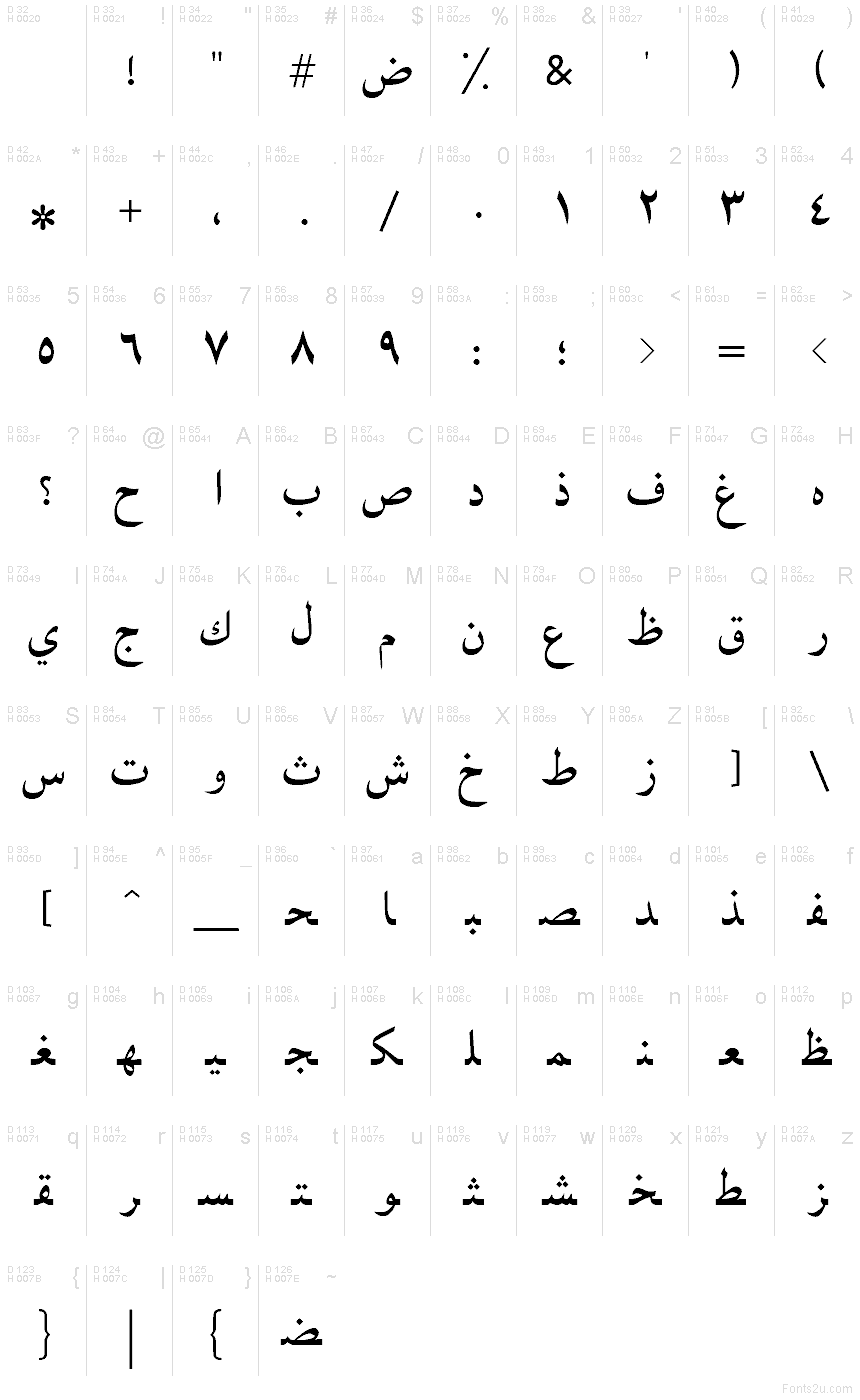
Baghdad
Baghdad font by Rudolph Homann offers an Arabic calligraphy feel with its unique glyph letterform. Its lines are smooth, clean, yet artistic; and the overall presence of this display typeface is truly eye-catching. Whether it’s for a logo project, labeling designs, stamps, or any other professional or personal project, this font would allow you to create a one-of-a-kind piece.
Applications in which Baghdad can be used include headlines and titles of magazines or newspapers. Publication covers like book cover designs as well as bookmarks are also viable options along with posters and flyers that will appear aesthetic. Additional uses consist of newsletters design artworks available both online within mobile/desktop platforms/apps/widgets – also offline on print media types such as menus (restaurants), invitations/envelopes/stationery cards.